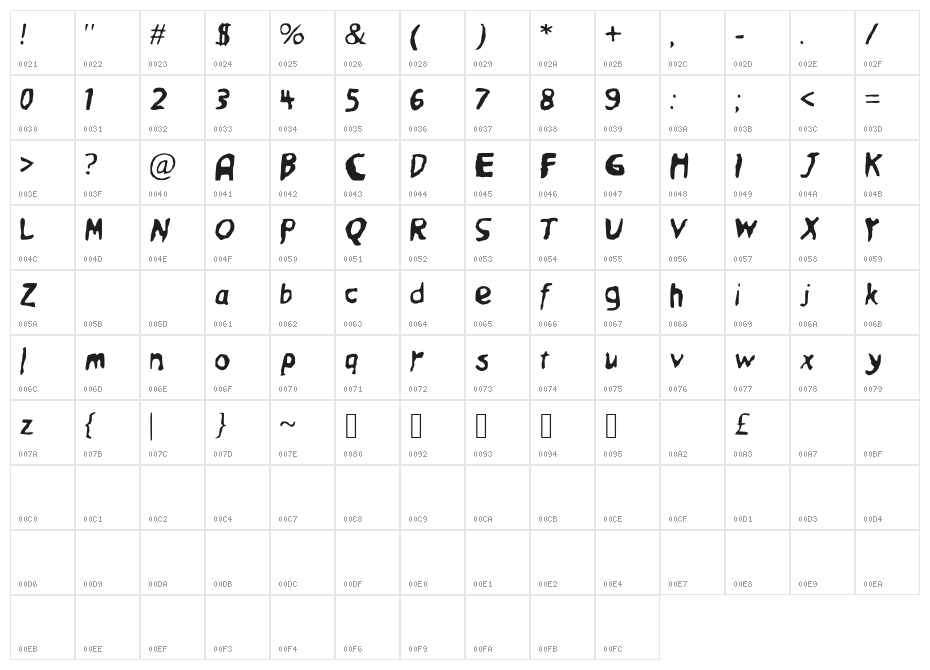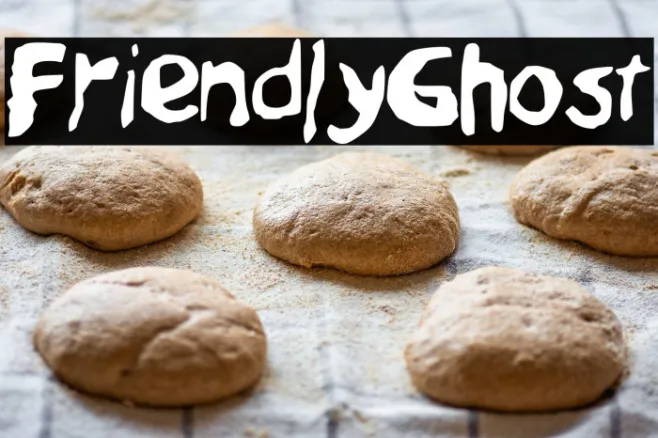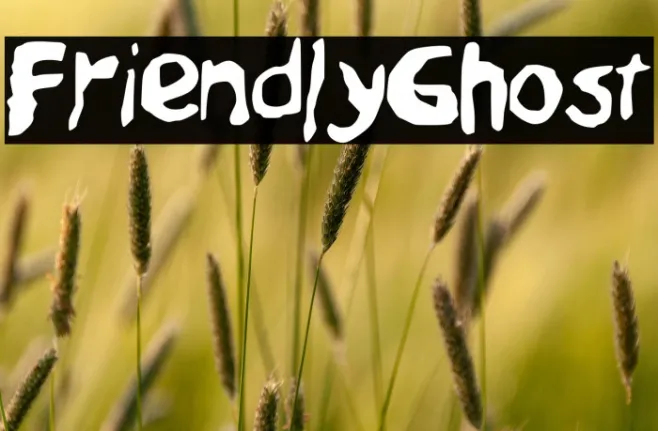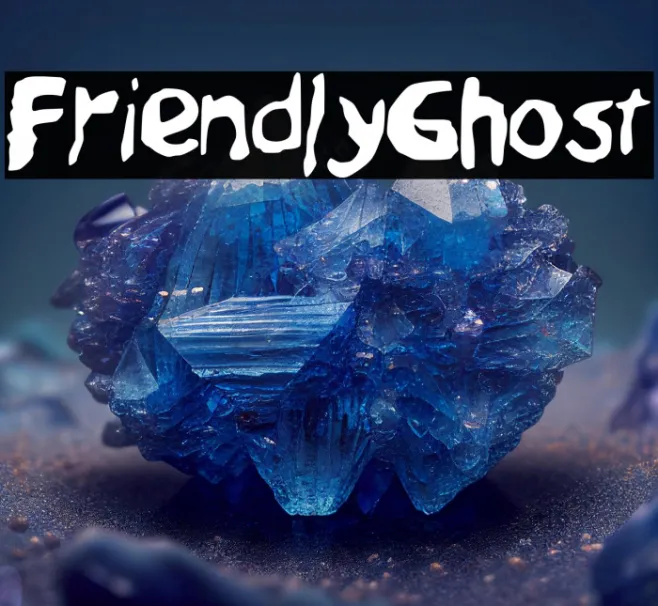
Friendly_Ghost Font
Friendly_Ghost Description
This font features a playful and whimsical design, characterized by its irregular and wavy strokes that give it a ghostly, hand-drawn appearance. The letters are bold and slightly distorted, creating a sense of movement and energy. The uppercase and lowercase letters maintain a consistent style, with rounded edges and varying stroke widths that add to the font's quirky charm. The numbers and special characters follow the same design principles, ensuring a cohesive look across all glyphs. This font is perfect for projects that require a fun and spooky aesthetic, such as Halloween-themed designs or children's book titles.
| Proposed Projects | Ideal for Halloween-themed designs, children's books, party invitations, and playful branding. |